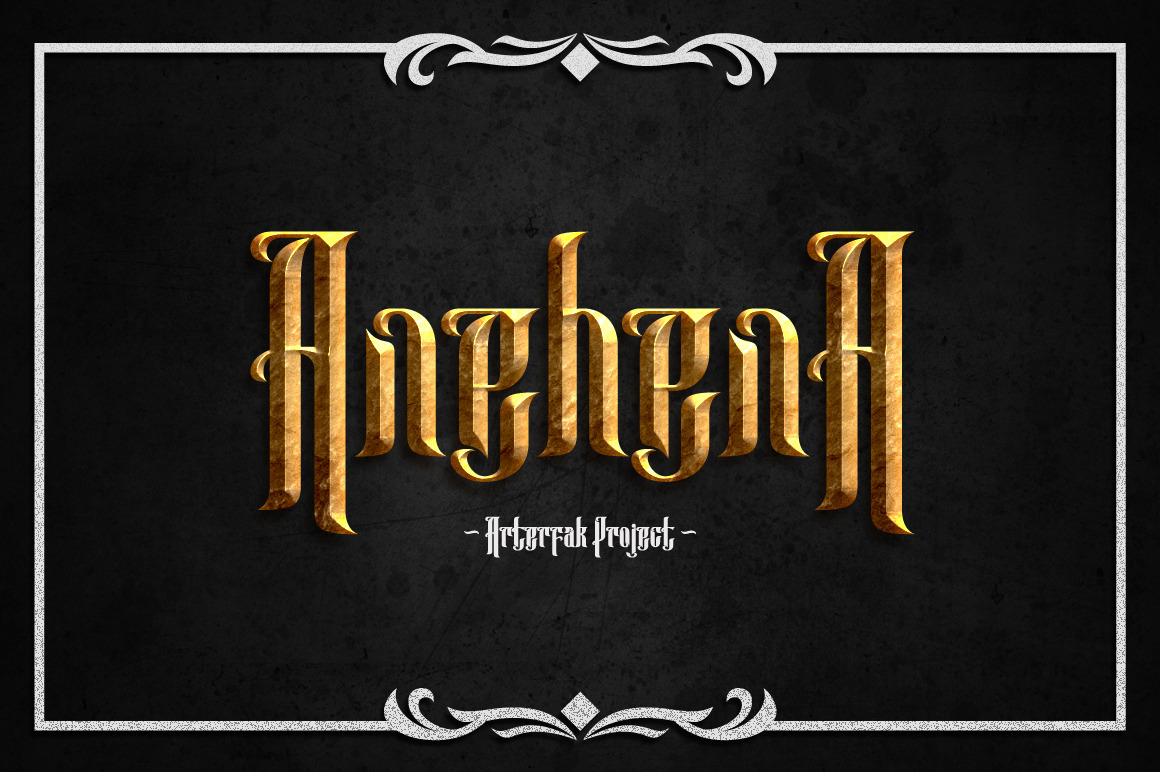
Anehena Typeface
The new blackletter named 'Anehena', The abstract-ornamental typeface for you who interesting in abstract taste. Comes in regular and italic. Very recommended for your headline, title or display. In your flyer, movie and music poster or temporary logo.